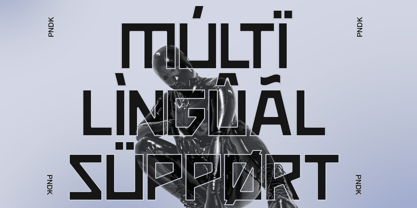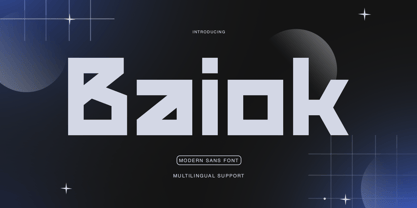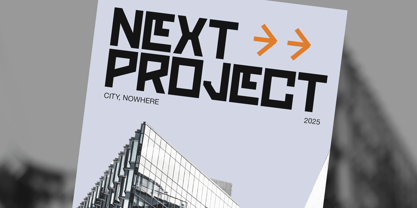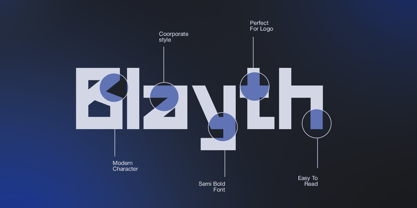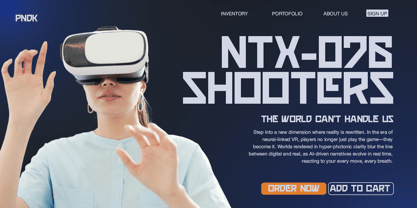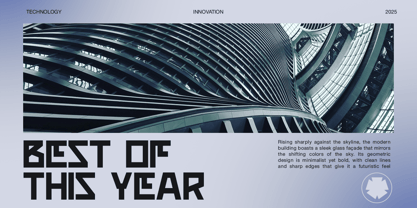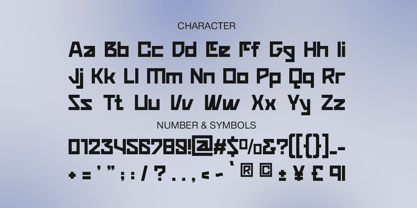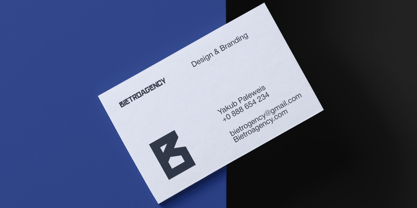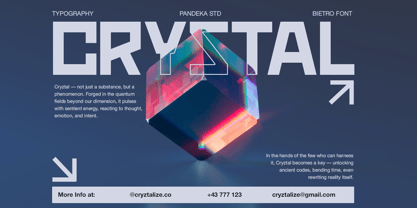
Baiok
Baiok is a bold and experimental display typeface inspired by digital grids, modular systems, and tech-forward aesthetics. Designed with sharp corners, angular cuts, and a geometric structure, Baiok feels at home in sci-fi interfaces, gaming titles, streetwear branding, and experimental visuals.
Its monospaced spirit and high-tech appeal make it ideal for futuristic editorial layouts, VR/AR interfaces, posters, or anything that demands a strong digital voice. Baiok includes uppercase and lowercase letters, numerals, punctuation, symbols, and multilingual support.
• 2 Style: Regular and Oblique
• Full Character Set: Uppercase, lowercase, numbers, symbols, and punctuation